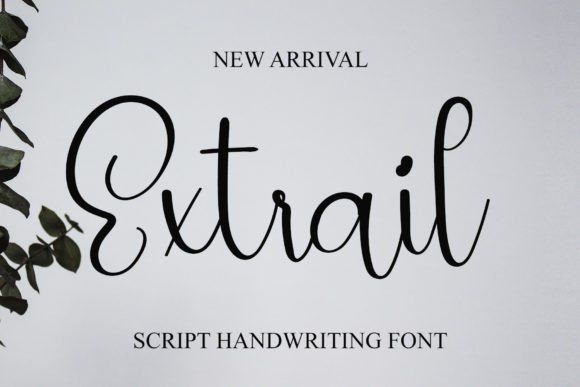
Get ready to unleash your creativity and transform your designs with Extrail Font, the ultimate script font that captures the essence of elegance and charm! Immerse yourself in the world of beautiful typography and discover the endless possibilities that await you.
Extrail Font is a delicate and cursive handwritten font, meticulously crafted to bring a touch of joy and romance to your projects. Its graceful strokes and sweeping curves evoke a sense of timeless beauty, making it the perfect choice for those who appreciate sophistication and charm.
With Extrail Font, you'll have the power to create captivating designs that leave a lasting impression. Its versatility knows no bounds, making it suitable for a wide range of projects, from branding and logos to wedding invitations and greeting cards. Its delicate touch adds a personal touch to your designs, making them stand out from the crowd.
Picture the allure of a signature logo adorned with Extrail Font, exuding a sense of individuality and flair that reflects the essence of your brand. Its elegant curves and flowing lines effortlessly convey a sense of luxury and sophistication, inviting your audience to engage with your business on a deeper level.
Let Extrail Font take your fashion designs to new heights. Its graceful strokes lend a touch of elegance to lookbooks and marketing promotions, capturing the essence of your brand's identity. Its romantic charm adds a touch of allure to your marketing campaigns, inviting customers to fall in love with your products.
The beauty of Extrail Font lies in its versatility. Whether you're creating branding materials, wedding invitations, or greeting cards, this font has the power to transform your designs into masterpieces. Its timeless charm adds a touch of sophistication to any project, making it the perfect choice for those who value beauty and elegance.
So, dive into the world of typography and let Extrail Font guide you on a creative journey. With its sweet and cursive charm, this font will add a touch of joy and romance to your projects, leaving a lasting impression on your audience. Embrace the power of Extrail Font and unlock the full potential of your creativity!